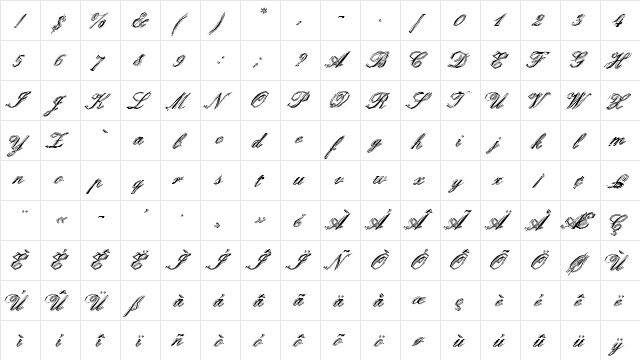
SteelPlateEF Regular
| Foundry | Elsner+Flake Designstudios |
Design Context for SteelPlateEF Typeface
SteelPlateEF is a composed and adaptable typeface that performs quietly and consistently across a wide range of design contexts.